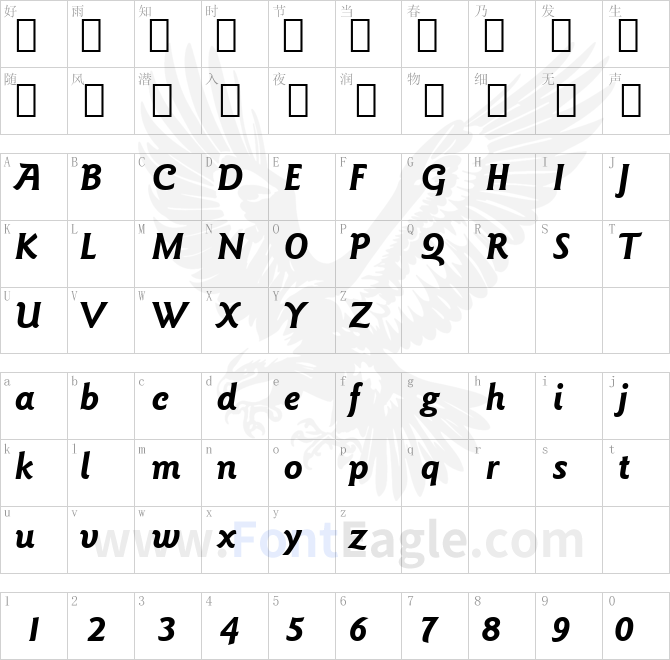
Goudy-Sans-Bold-Italic-BT is a great font, widely used in graphic design, single-page menu design, poster design and other fields, and is deeply loved by designers.Goudy-Sans-Bold-Italic-BT download.